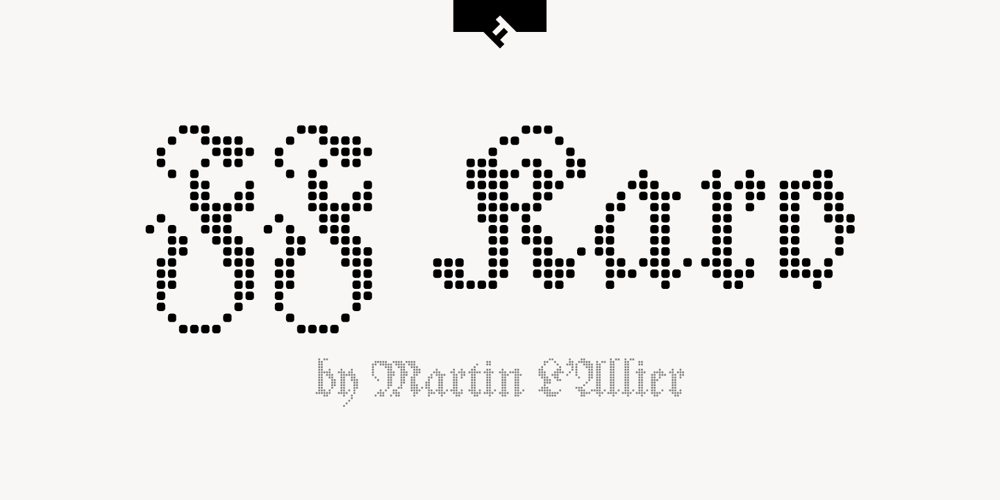
FF Karo Font Family was designed by Martin L’Allier and published by FontFont. FF Karo contains 3 styles and family package options. Canadian type designer Martin L’Allier created this display and blackletter FontFont in 2005. The family contains 3 weights and is ideally suited for advertising and packaging, festive occasions, editorial and publishing as well as poster and billboards. FF Karo provides advanced typographical support with features such as swashes, ligatures, case-sensitive forms, fractions, super- and subscript characters, and stylistic alternates. It comes with a complete range of figure set options – oldstyle and lining figures, each in tabular and proportional widths.